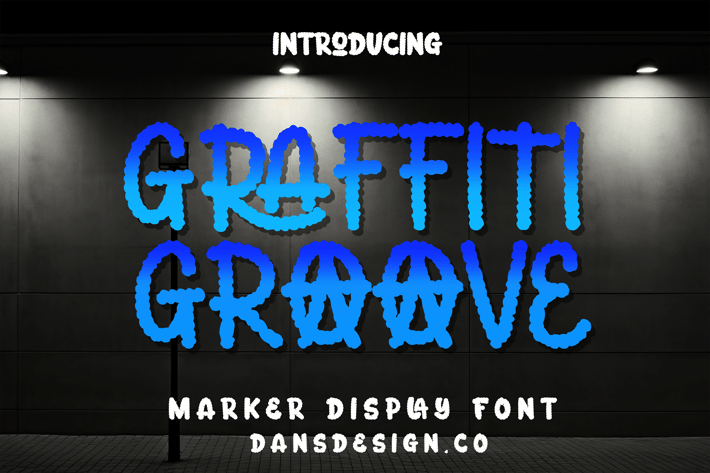
GRAFFITI GROOVE Marker Graffiti Bubble Font
GRAFFITI GROOVE Marker Graffiti Bubble Font is a distinct, highly detailed. City Pop Display Font.
It would make a great choice for exquisite retro-urban designs, business branding, logos, Apparel designs, and more.